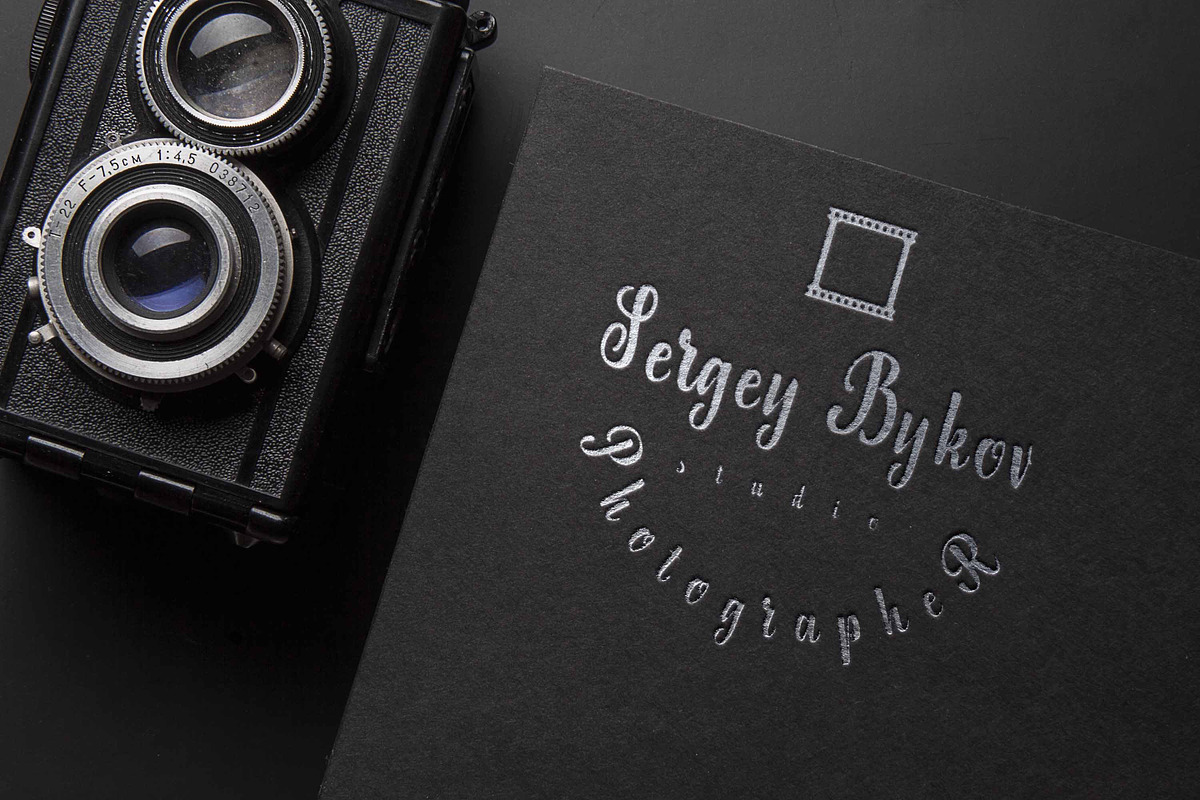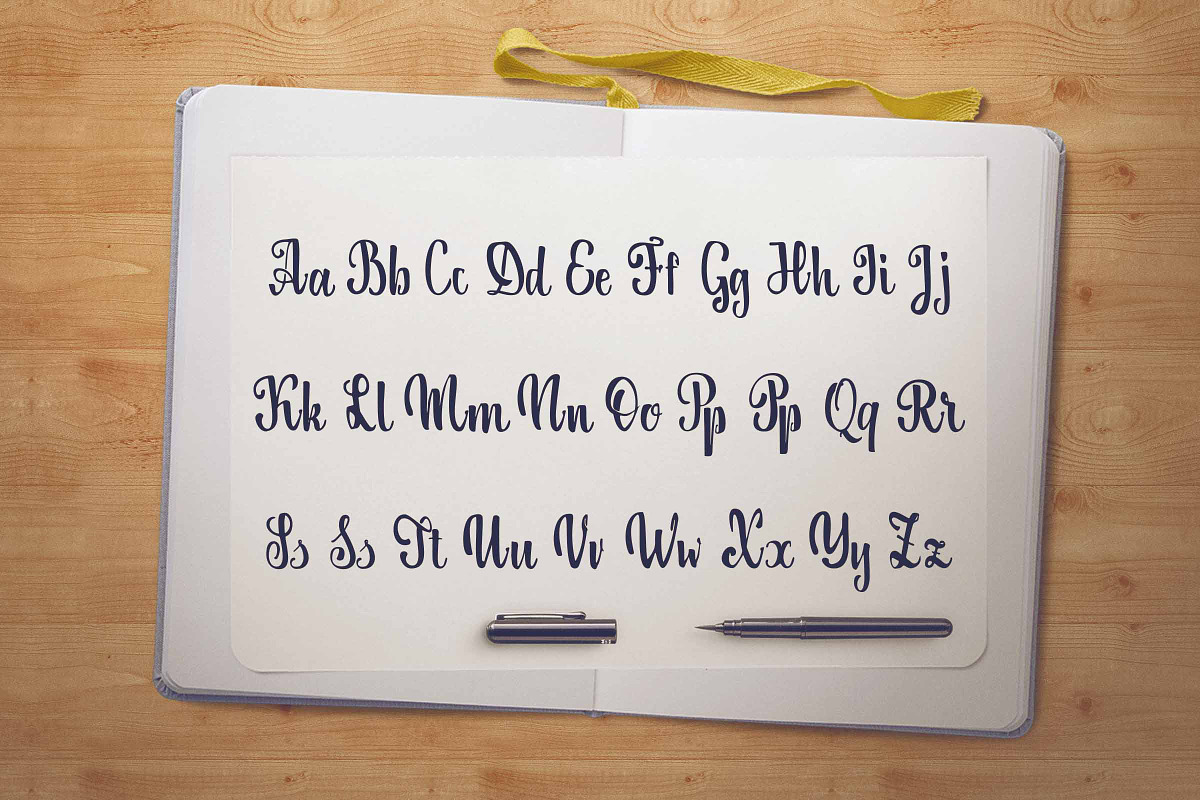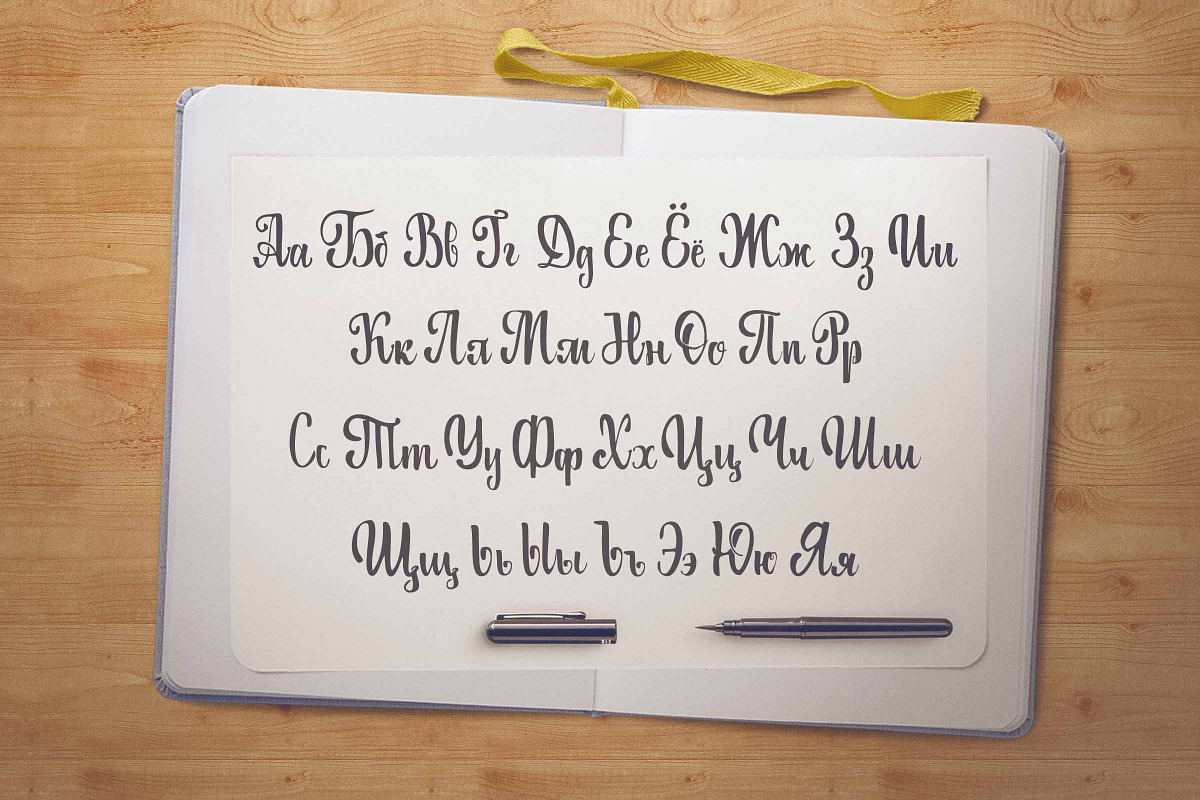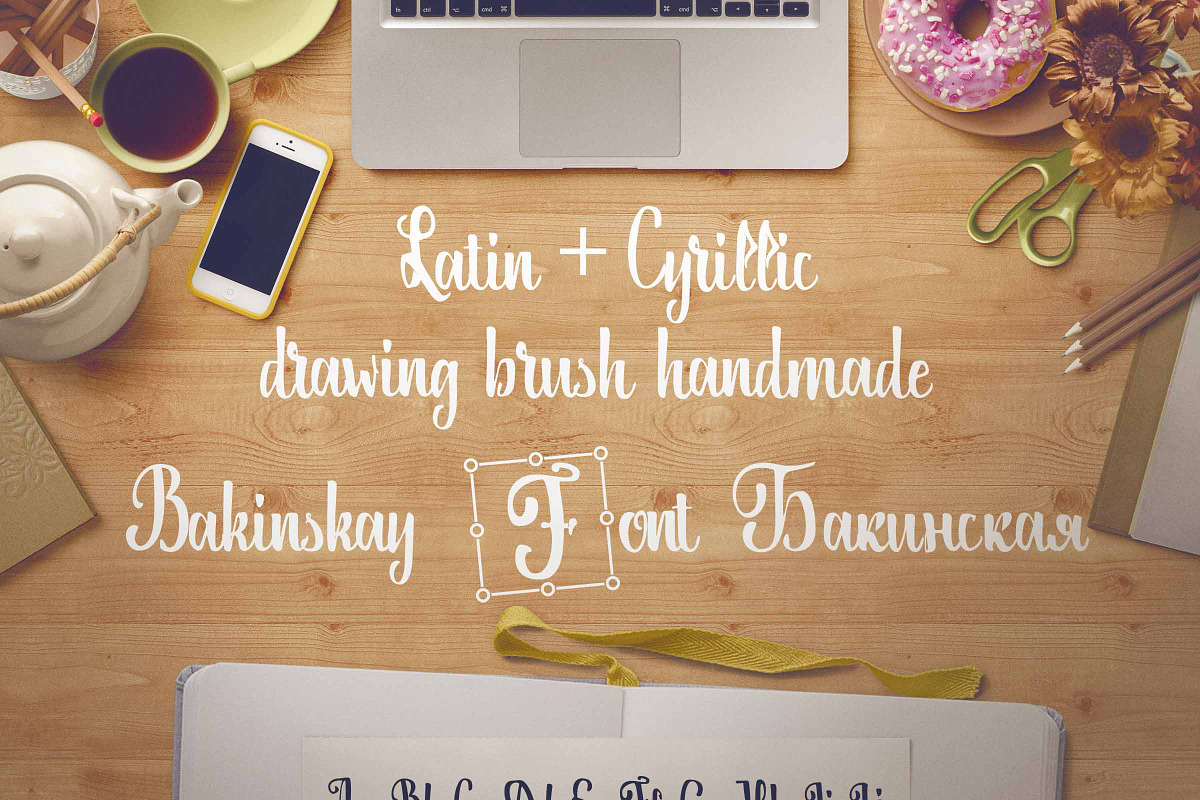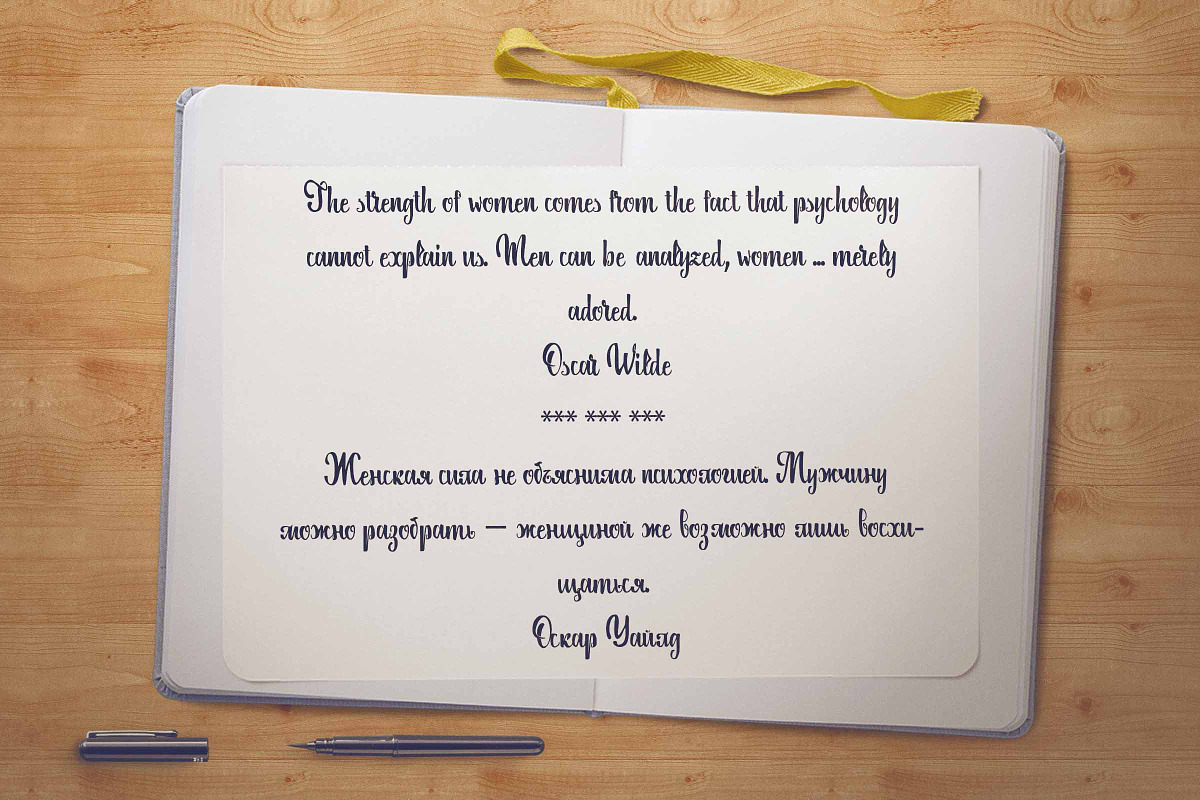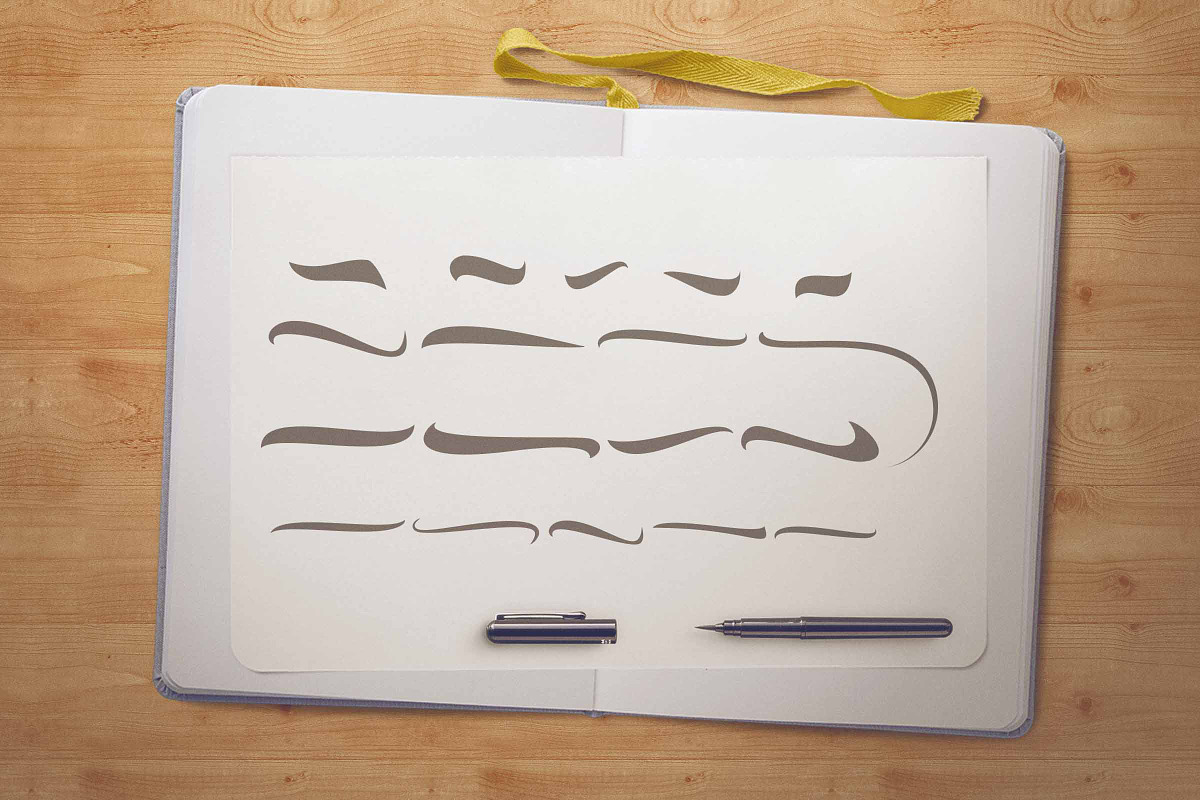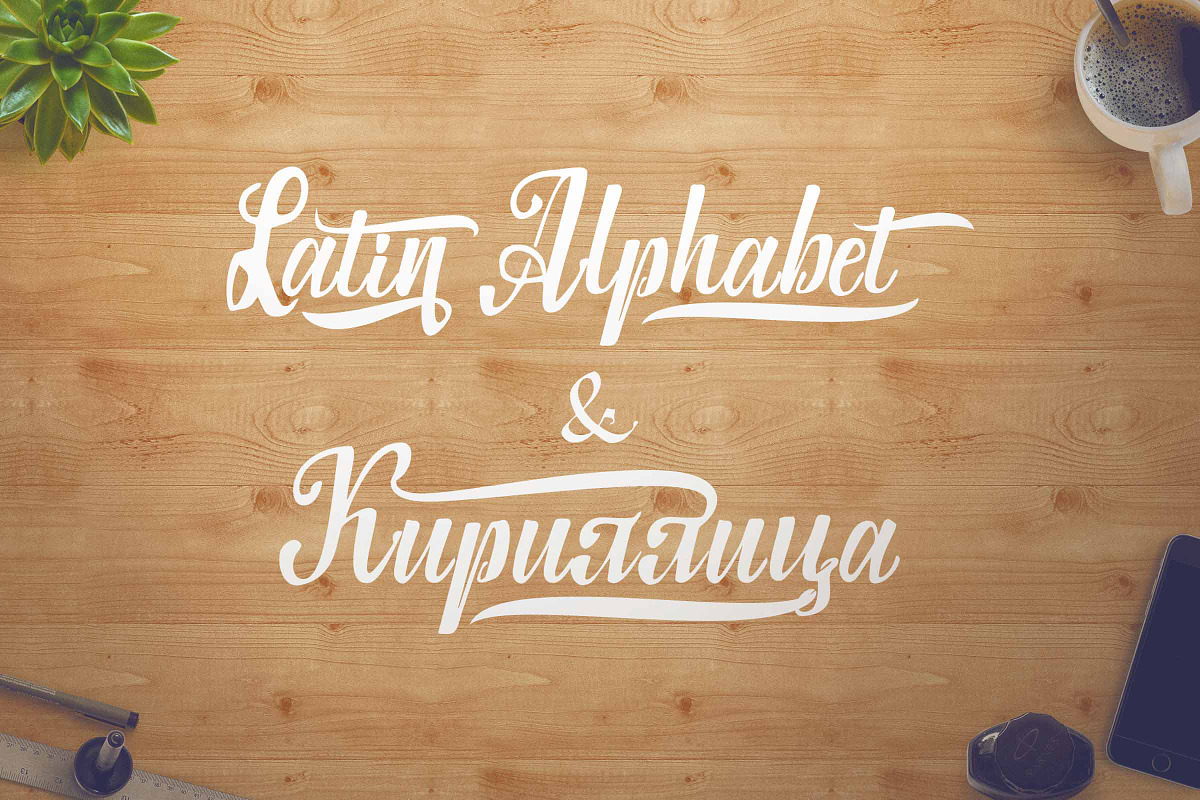
Bakinskay Handmade Font Brush
Bakinskay Handmade Font Brush by zao4nik is a font selected for branding, posters, packaging, typography.
Why Bakinskay Handmade Font Brush is worth a look
Bakinskay Handmade Font Brush by zao4nik fits naturally into Branding, posters, packaging, typography.